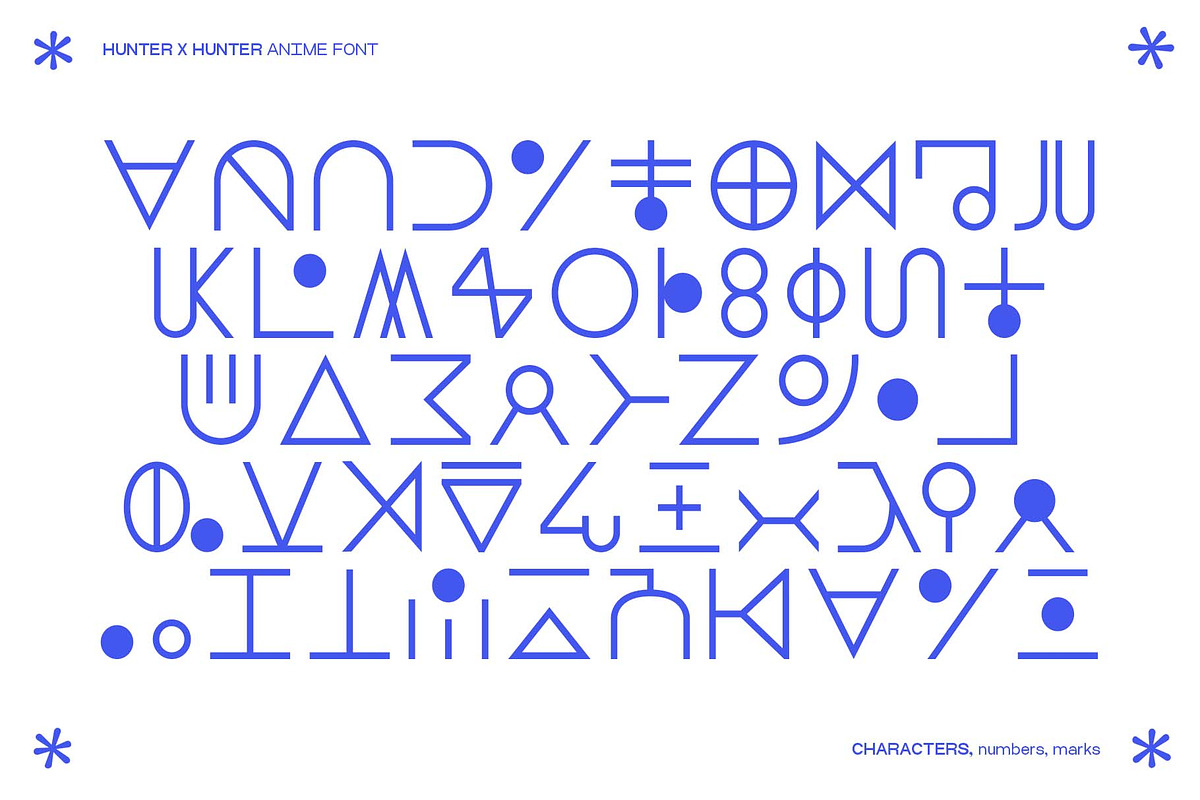
HUNTER X HUNTER symbol font
Have you ever desired to write with the awesome font that is used is the HunterXHunter anime? Now you actually can, i found myself searching for it and i couldn't find it anywhere so i decided to make it by myself. So, the font is actually based on Japanese, so what you write in english is not what a Japanese would read, also letters are associated in a random way, the font looks really good, it has characters in all letters, numbers and a lot of marks! Enjoy!